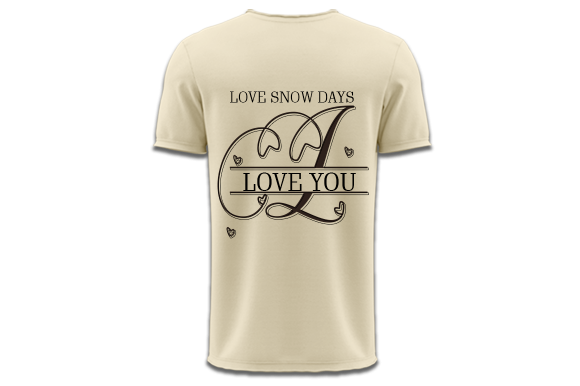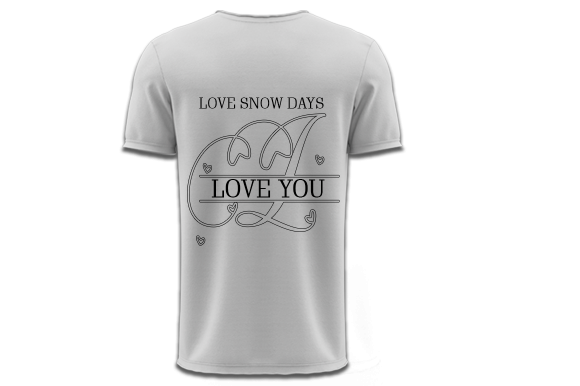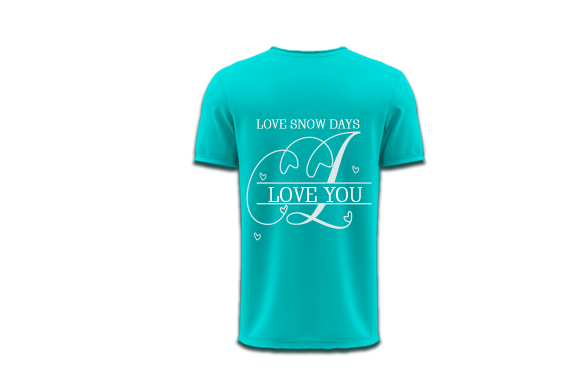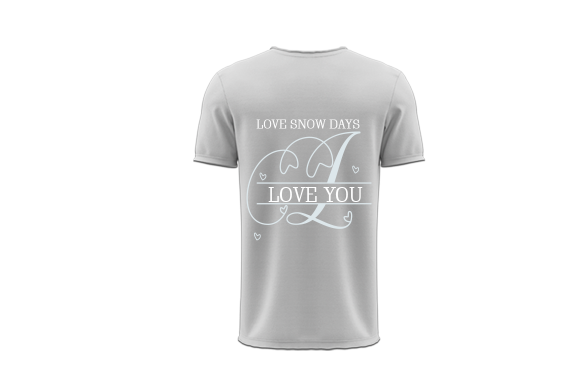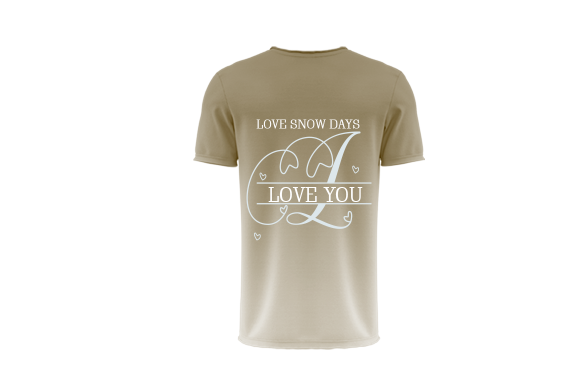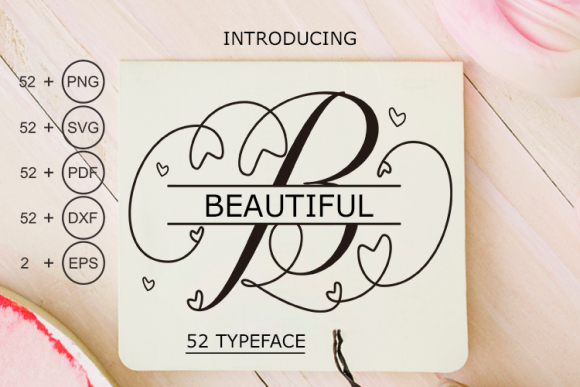
The Beautiful Font: Elevate Your Designs with Elegance and Charm
Are you looking for a font that exudes elegance, sophistication, and a touch of whimsy? Look no further than the Beautiful Font, a stunning decorative font that is sure to capture your heart. With its delicate ornaments and authentic feel, this font is perfect for designers and crafters who want to add a touch of luxury to their creations.
What Makes the Beautiful Font So Special?
The Beautiful Font is an elegant decorative font that features intricate ornaments and a unique charm. Its authentic feel makes it perfect for a variety of design projects, from wedding invitations and stationery to social media posts and greeting cards. Whether you’re a professional designer or a crafty DIY enthusiast, this font is sure to inspire your creativity and help you create stunning designs.
Perfect for Wedding Invitations and Stationery
Wedding planners and stationery designers, rejoice! The Beautiful Font is a perfect choice for creating gorgeous wedding invitations, save-the-date cards, and other stationery pieces. Its elegant and sophisticated design will add a touch of luxury to your creations, making them truly unforgettable. Imagine pairing this font with beautiful floral patterns, watercolor illustrations, or delicate lace textures to create a truly show-stopping design.
Eye-Catching Social Media Posts
Social media enthusiasts, take note! The Beautiful Font is also perfect for creating eye-catching social media posts that will make your followers stop and stare. Whether you’re promoting a new product, sharing a special offer, or simply want to add some visual interest to your feed, this font is sure to help you stand out from the crowd. Try pairing it with bold colors, fun graphics, or inspiring quotes to create a post that will engage and inspire your audience.
Cute Greeting Cards and More
The Beautiful Font is not just limited to wedding invitations and social media posts. It’s also perfect for creating cute greeting cards, gift tags, and other paper crafts. Imagine using it to create a beautiful birthday card, a heartfelt thank-you note, or a sweet Valentine’s Day message. The possibilities are endless, and the Beautiful Font is sure to become your go-to choice for all your paper crafting needs.
Why Choose the Beautiful Font?
So why choose the Beautiful Font over other decorative fonts? Here are just a few reasons why this font stands out from the rest:
• Elegant and sophisticated design: The Beautiful Font features a unique and elegant design that is sure to add a touch of luxury to your creations.
• Delicate ornaments: The font’s intricate ornaments add a touch of whimsy and charm to your designs.
• Authentic feel: The Beautiful Font has an authentic feel that makes it perfect for a variety of design projects, from traditional to modern.
• Versatile: This font is perfect for a wide range of design projects, from wedding invitations to social media posts.
Tips for Using the Beautiful Font
Here are a few tips for using the Beautiful Font in your designs:
• Pair it with complementary fonts: Try pairing the Beautiful Font with complementary fonts, such as serif or script fonts, to add visual interest to your designs.
• Experiment with colors: Don’t be afraid to experiment with different colors and textures to add depth and interest to your designs.
• Use it sparingly: While the Beautiful Font is stunning on its own, it can also be used sparingly to add a touch of elegance to your designs.
Font Name Beautiful Font
Author petterco.font
The Beautiful Font is a stunning decorative font that is sure to capture your heart. With its elegant design, delicate ornaments, and authentic feel, it’s perfect for designers and crafters who want to add a touch of luxury to their creations. Whether you’re creating wedding invitations, social media posts, or cute greeting cards, this font is sure to inspire your creativity and help you create stunning designs. So why wait? Fall in love with the Beautiful Font today and elevate your designs to the next level!